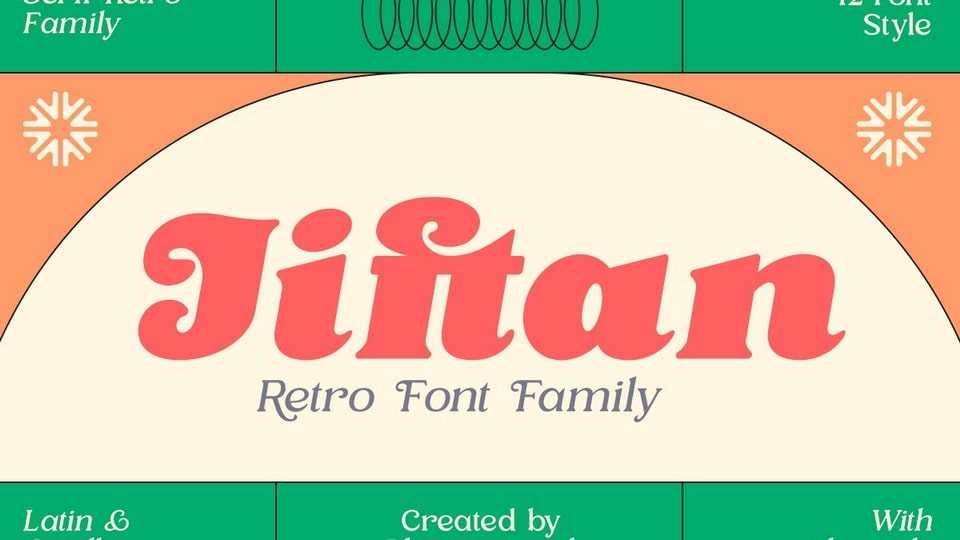
Download Jiftan font, a soft and rounded old-style serif typeface that echoes the charm of the sixties era. Jiftan offers a clean and versatile letterform that is perfect not only for display but also for reading purposes.